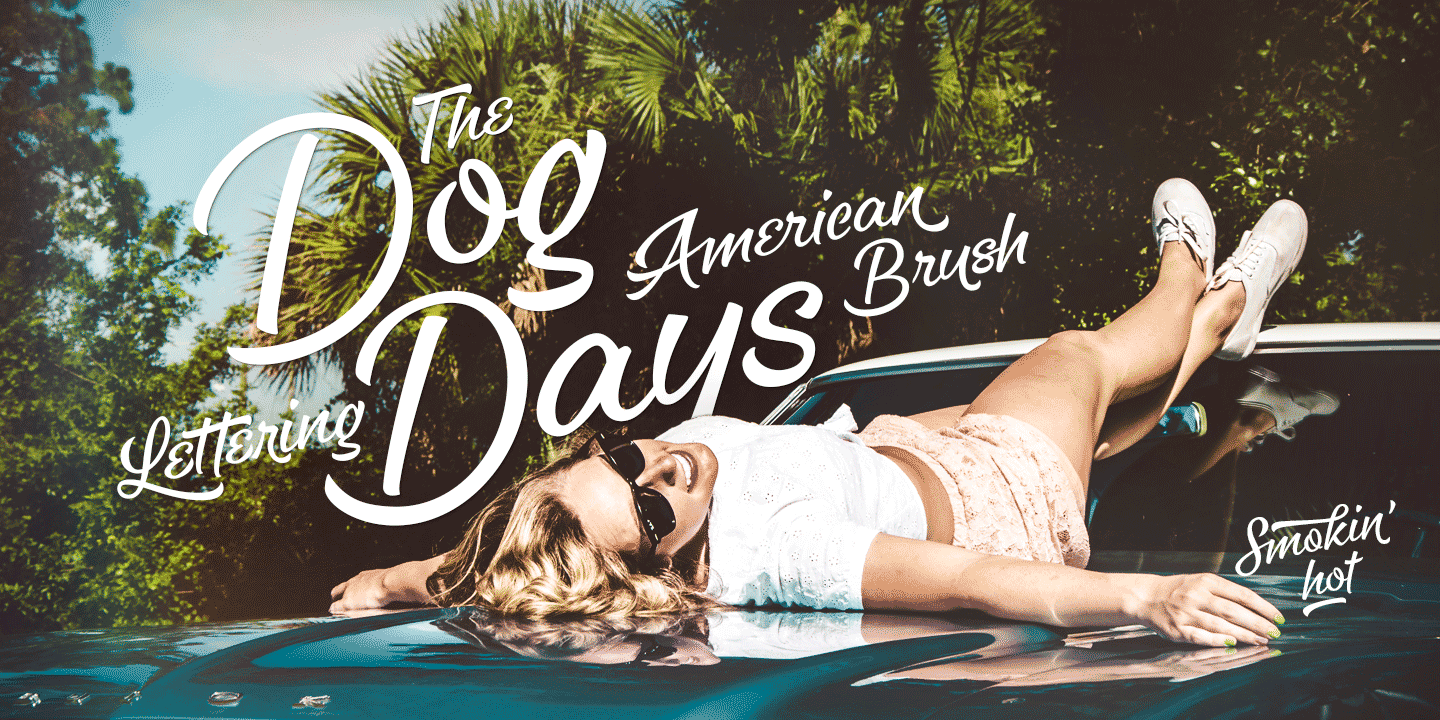
Dog Days Font is ideal for casual design applications including pet-related branding, summer event promotions, relaxed lifestyle marketing, beach club signage, casual dining menus, vacation resort graphics, laid-back apparel designs, and informal community events. This playful typeface captures the carefree spirit of lazy summer days and relaxed outdoor living.
What makes Dog Days Font exciting is its perfect embodiment of summer leisure and casual comfort through relaxed letterforms that evoke the unhurried pace of warm weather days. The font features friendly, approachable characteristics with a laid-back personality that instantly communicates relaxation and enjoyment. Its casual charm appeals to audiences seeking escape from everyday stress and embracing simple pleasures.
The Dog Days Font family includes various leisure-inspired styles such as Regular, Bold, Condensed, and playful alternates that enhance the casual summer aesthetic. These relaxed options provide comprehensive design solutions for creating authentic leisure brand identities that celebrate outdoor living and seasonal enjoyment.
This distinctive casual typeface brings genuine summer authenticity to contemporary design projects. Leisure brands and seasonal businesses choose Dog Days Font Free Download for its exceptional ability to communicate relaxation and carefree enjoyment. The font's summer inspiration makes it perfect for vacation destinations, outdoor recreation companies, and casual lifestyle brands that want to evoke the peaceful satisfaction of lazy summer afternoons. Its friendly character ensures memorable brand recognition while maintaining the authentic aesthetic that defines exceptional leisure-focused design work.